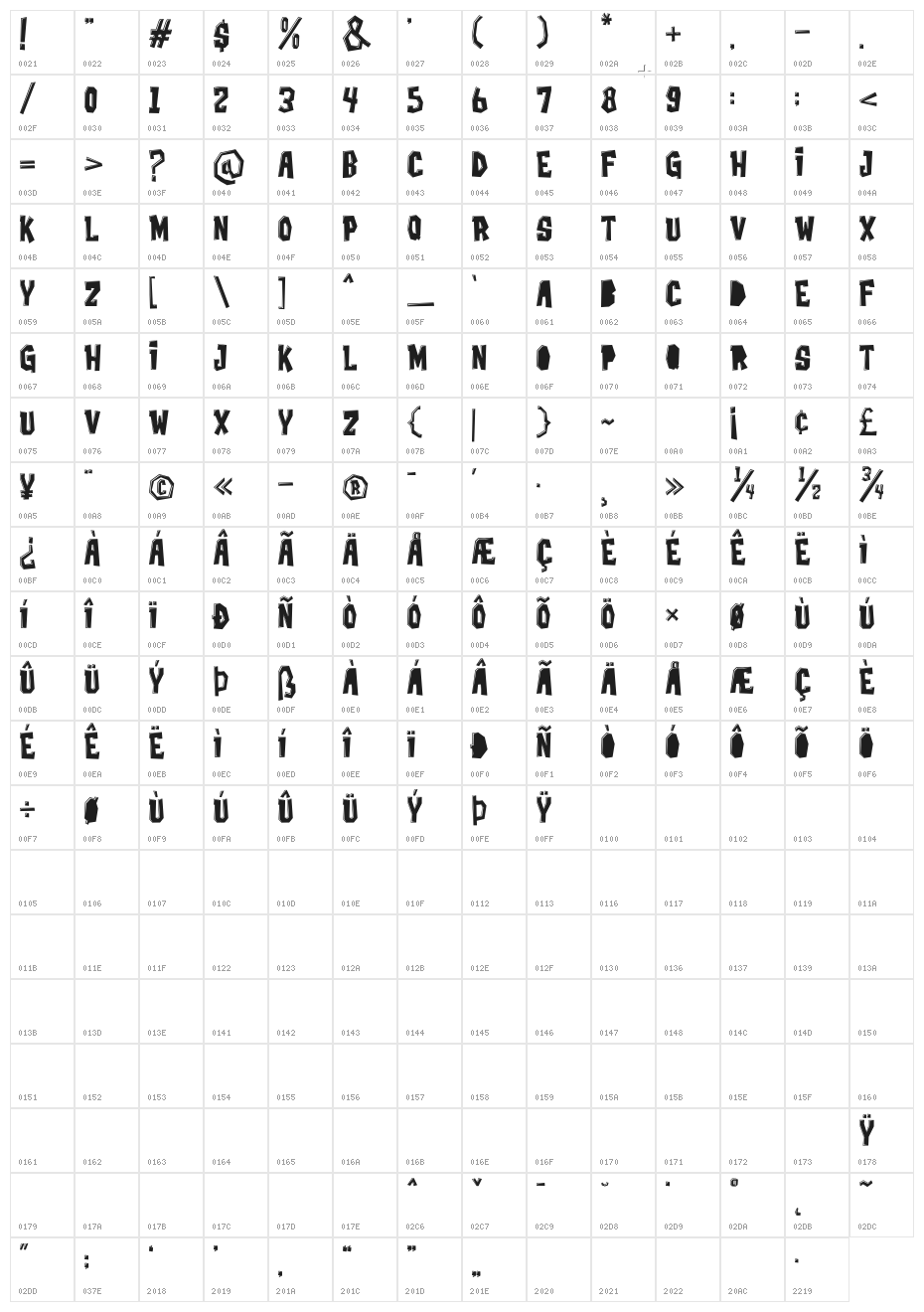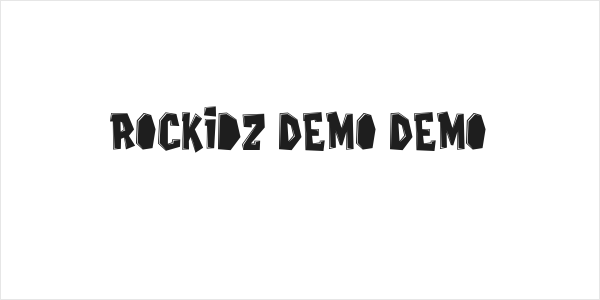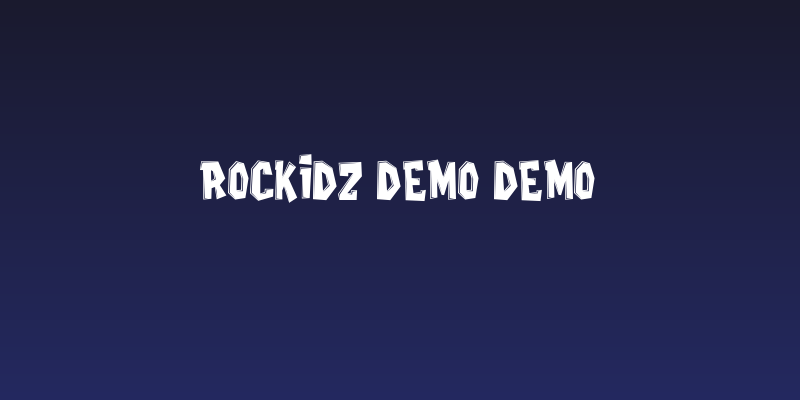
Rockidz Demo Demo Font
Rockidz Demo Demo Description
This font features a bold and dynamic style with a three-dimensional effect that gives it a playful and energetic appearance. The uppercase letters are designed with sharp angles and thick strokes, creating a sense of movement and excitement. The numbers and special characters maintain this boldness, ensuring consistency across all elements. The font's unique design makes it stand out, with each character having a slightly irregular shape that adds to its charm. This font is perfect for projects that require a fun and eye-catching look, such as children's books, posters, or event flyers. Its strong presence and distinctive style make it ideal for grabbing attention and conveying a sense of adventure.
| Overall Style | Playful, Energetic |
| Proposed Projects | Ideal for children's books, posters, event flyers, and any project needing a fun, eye-catching look. |